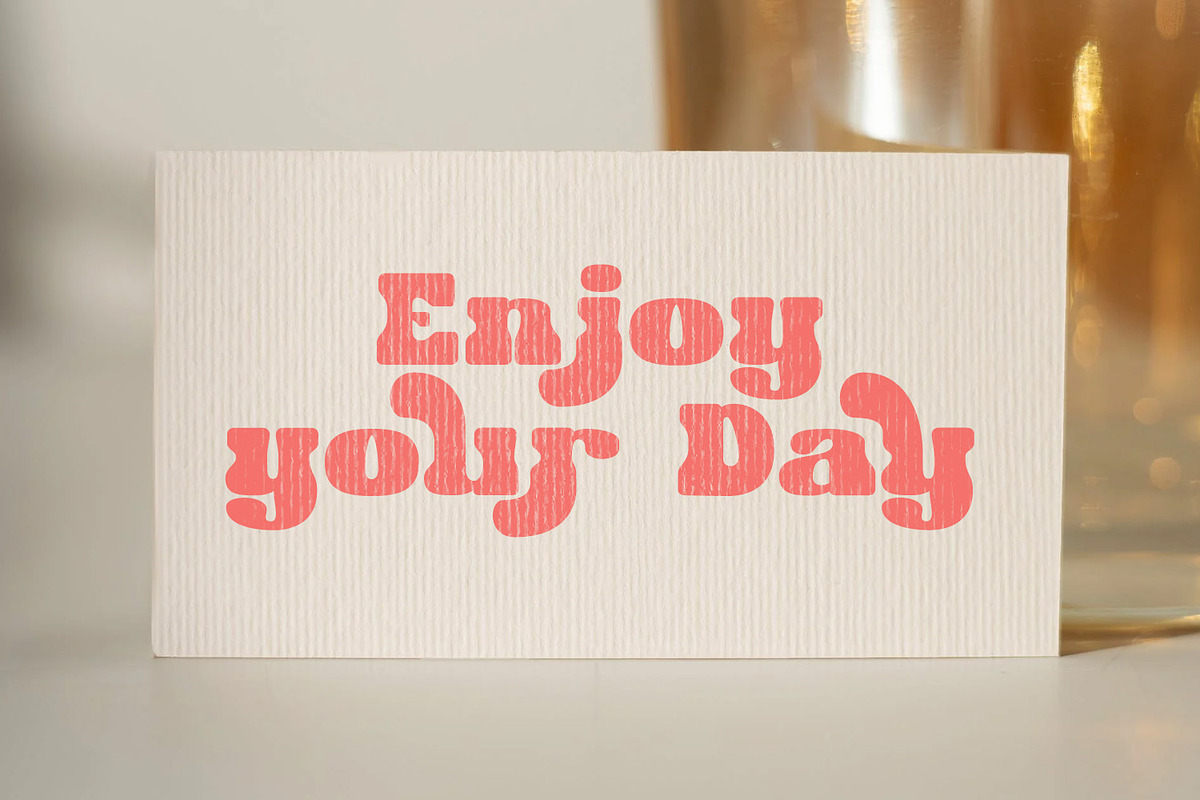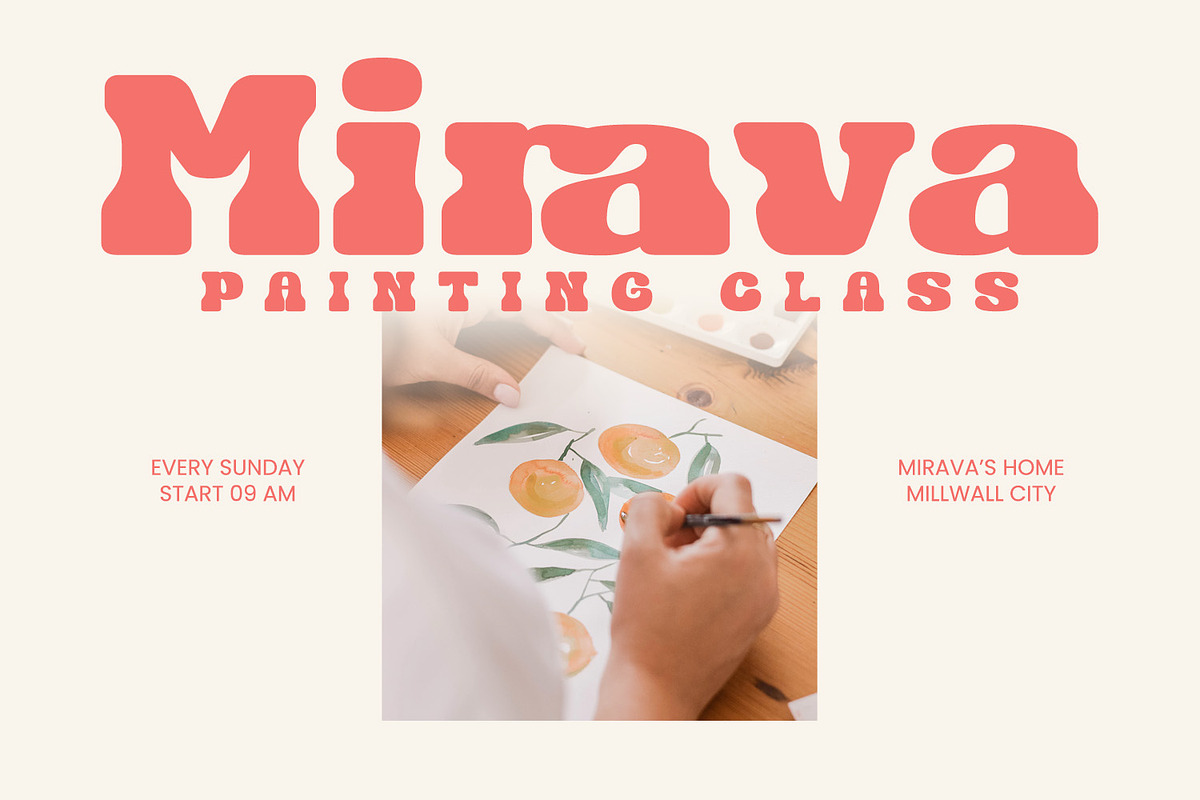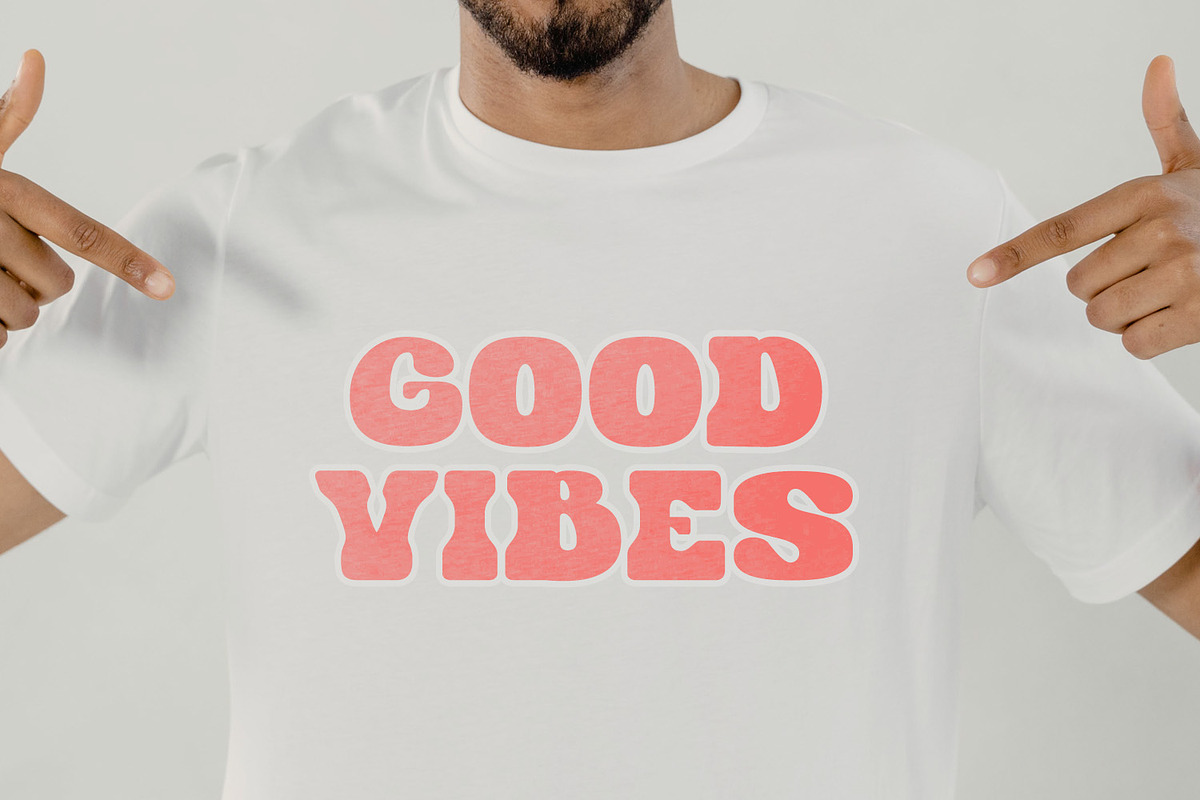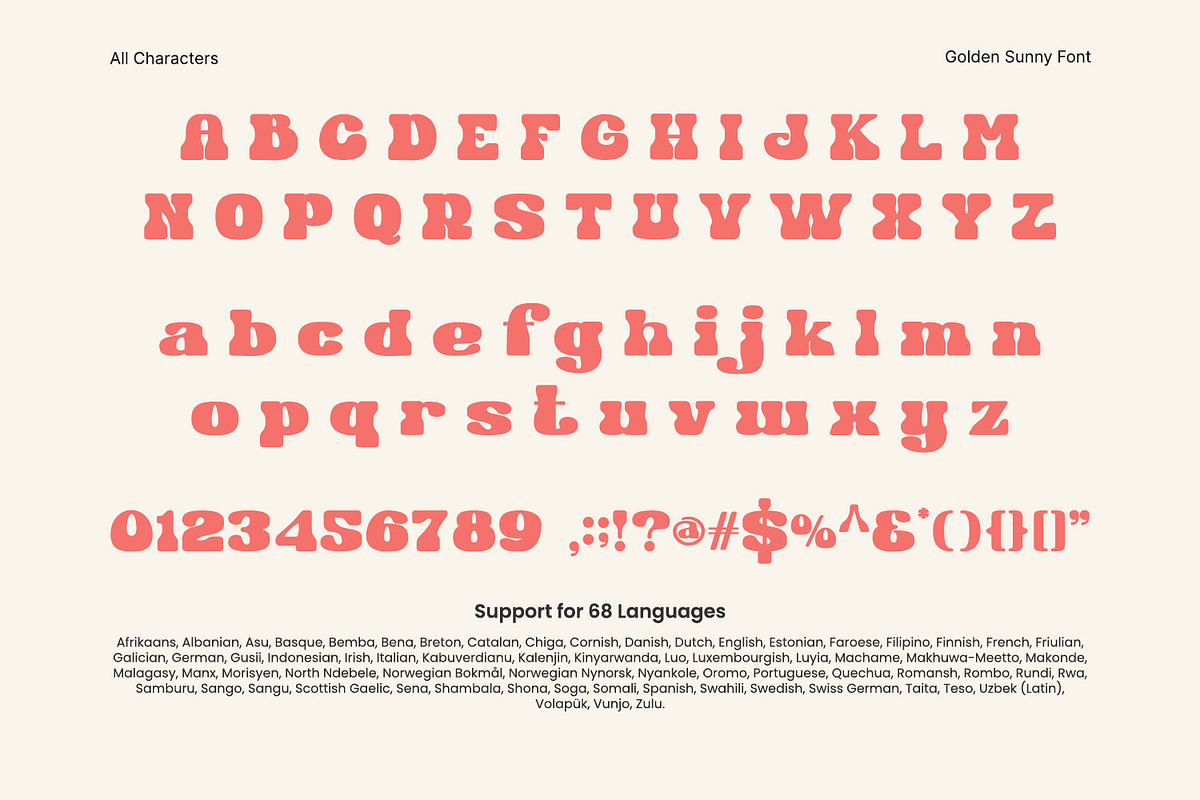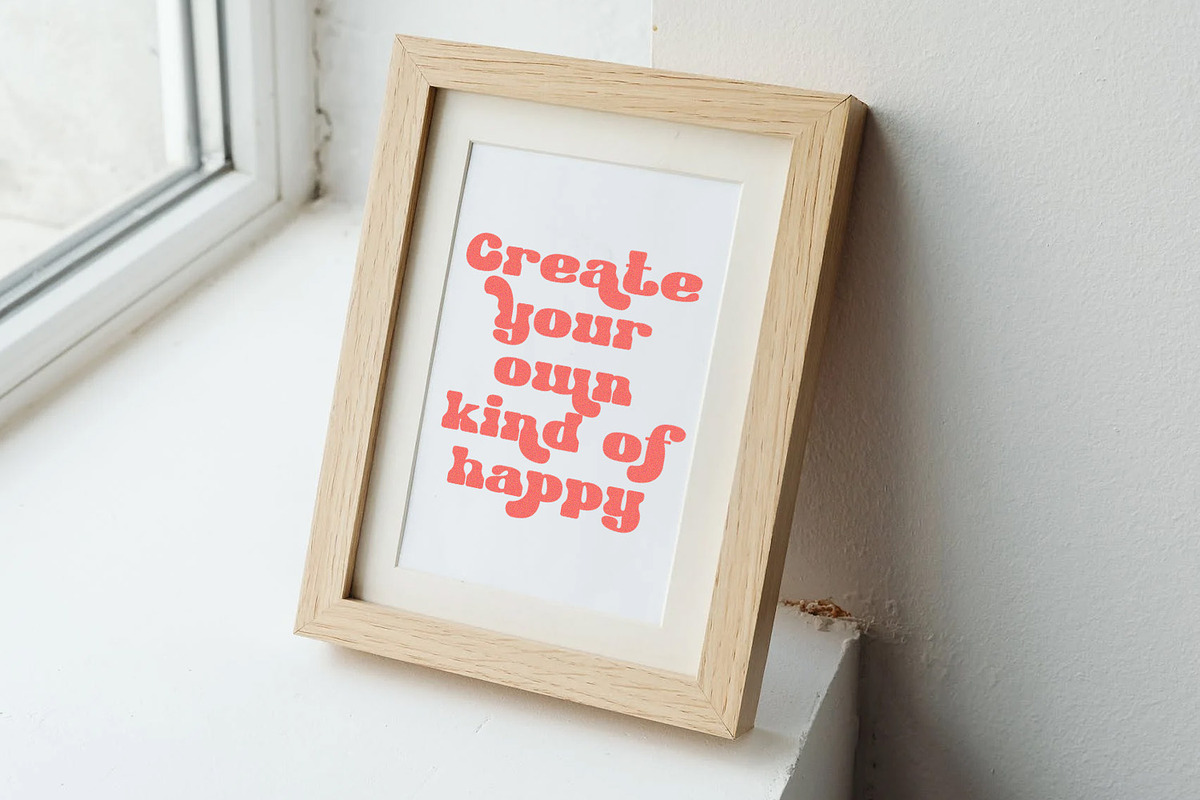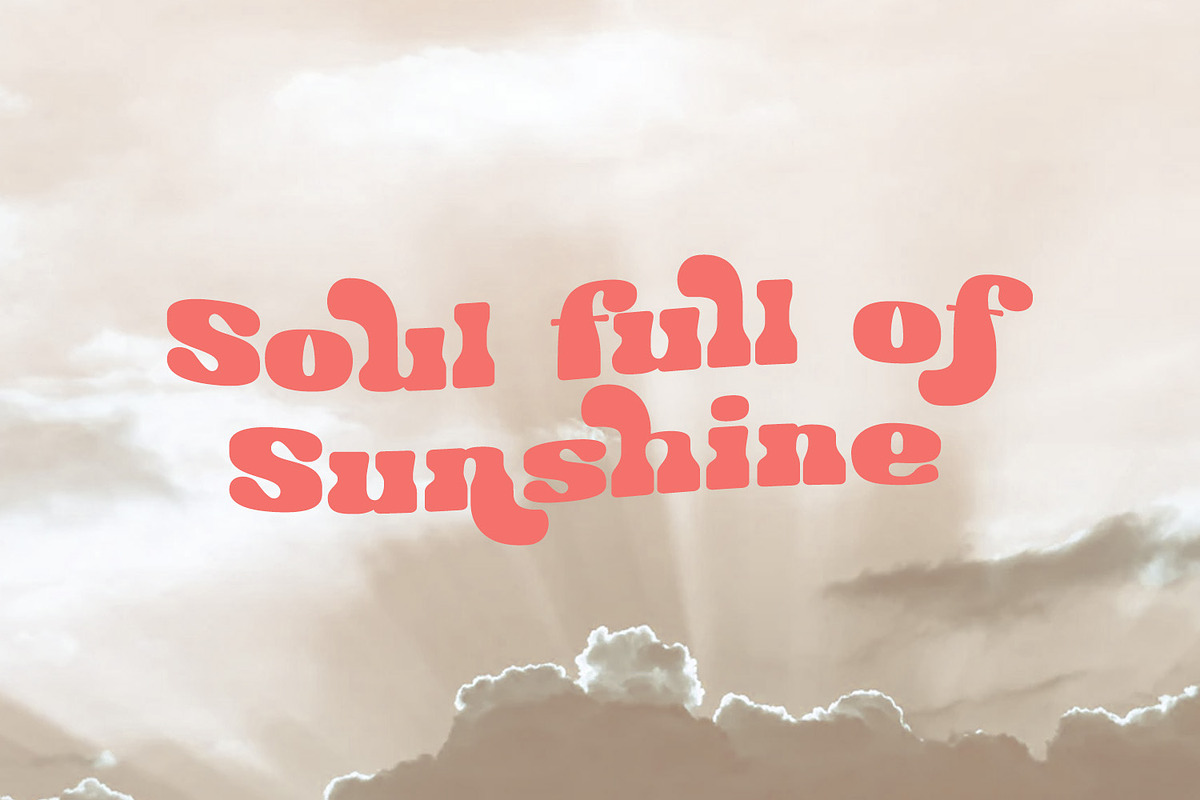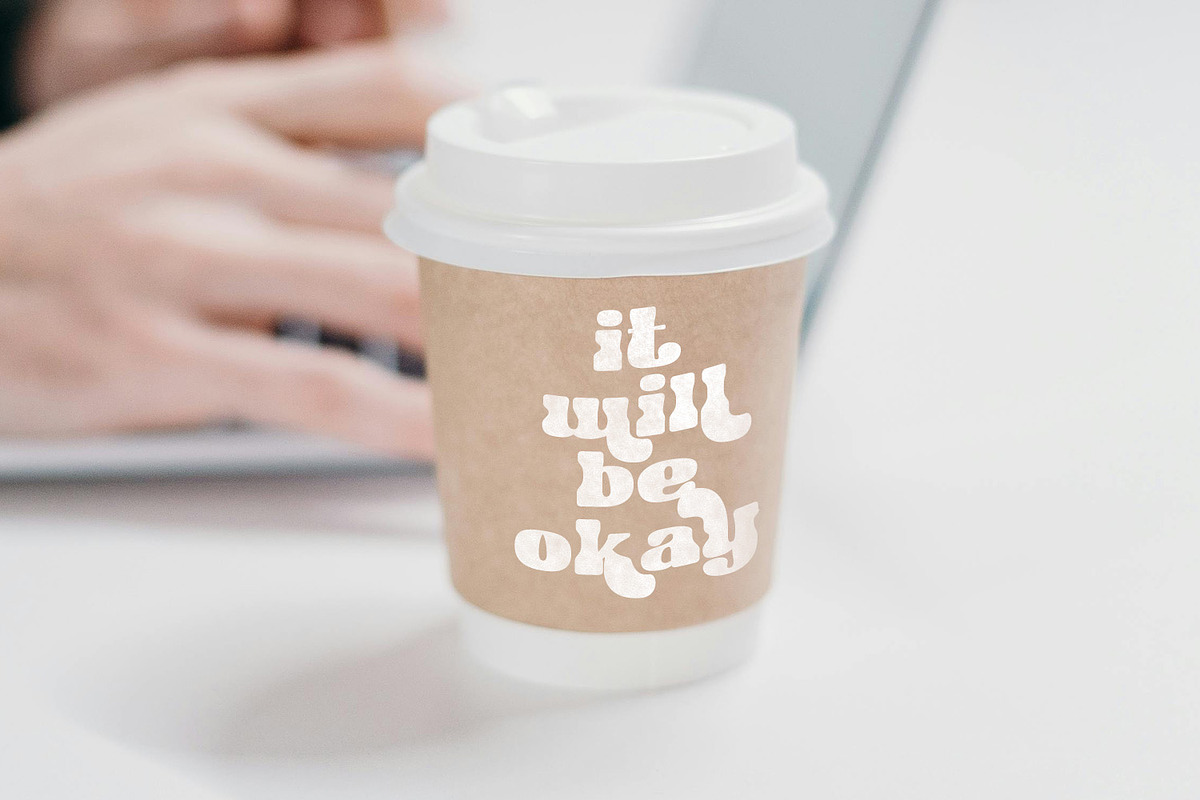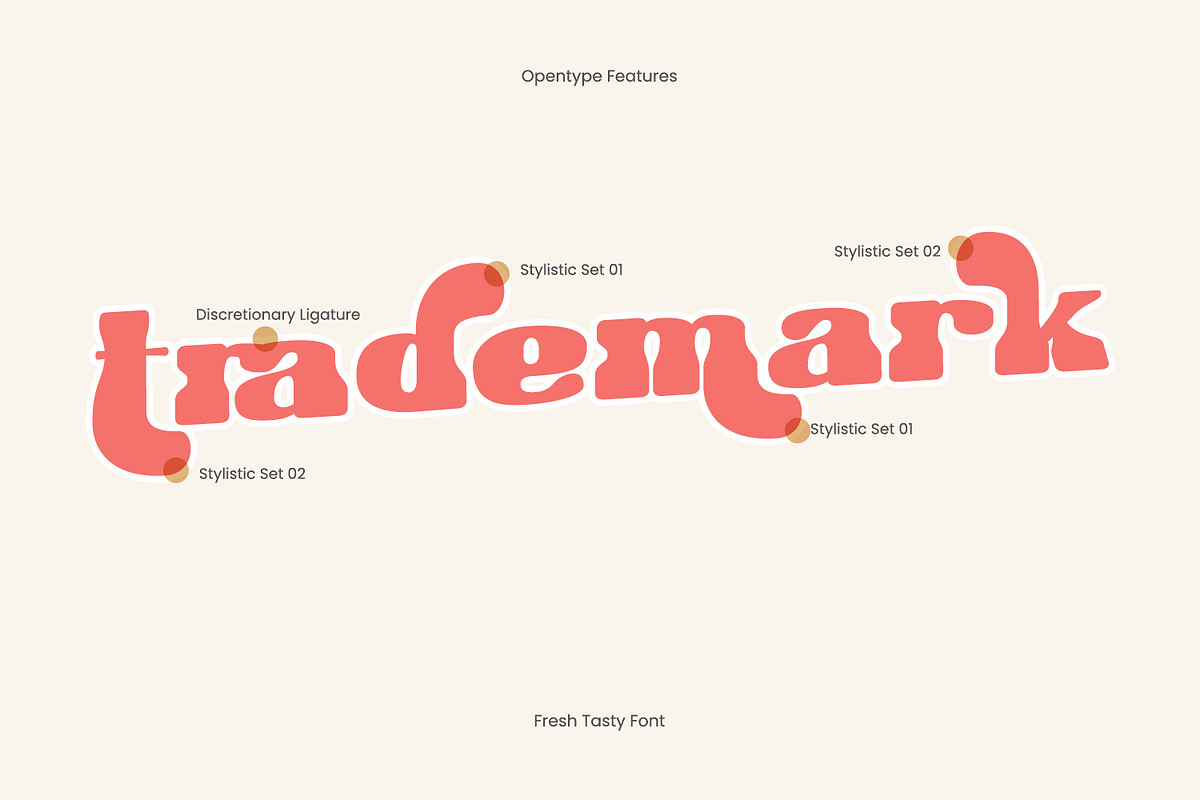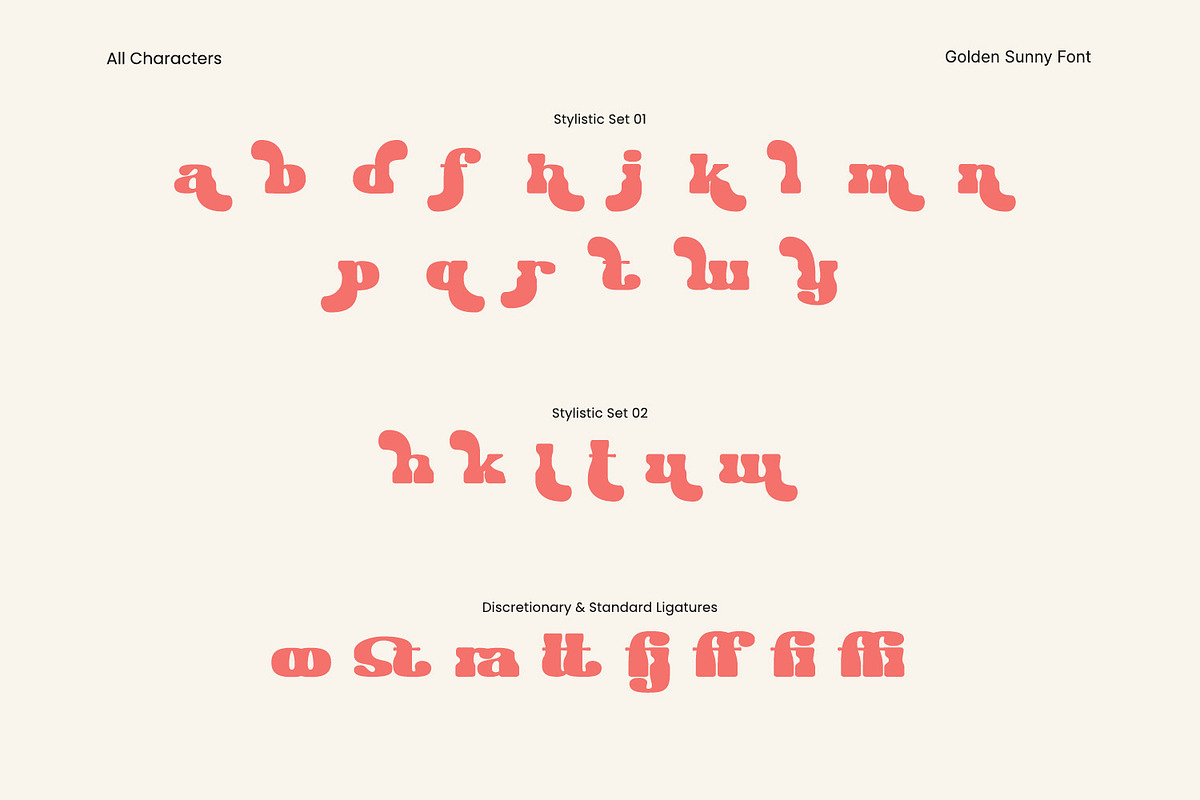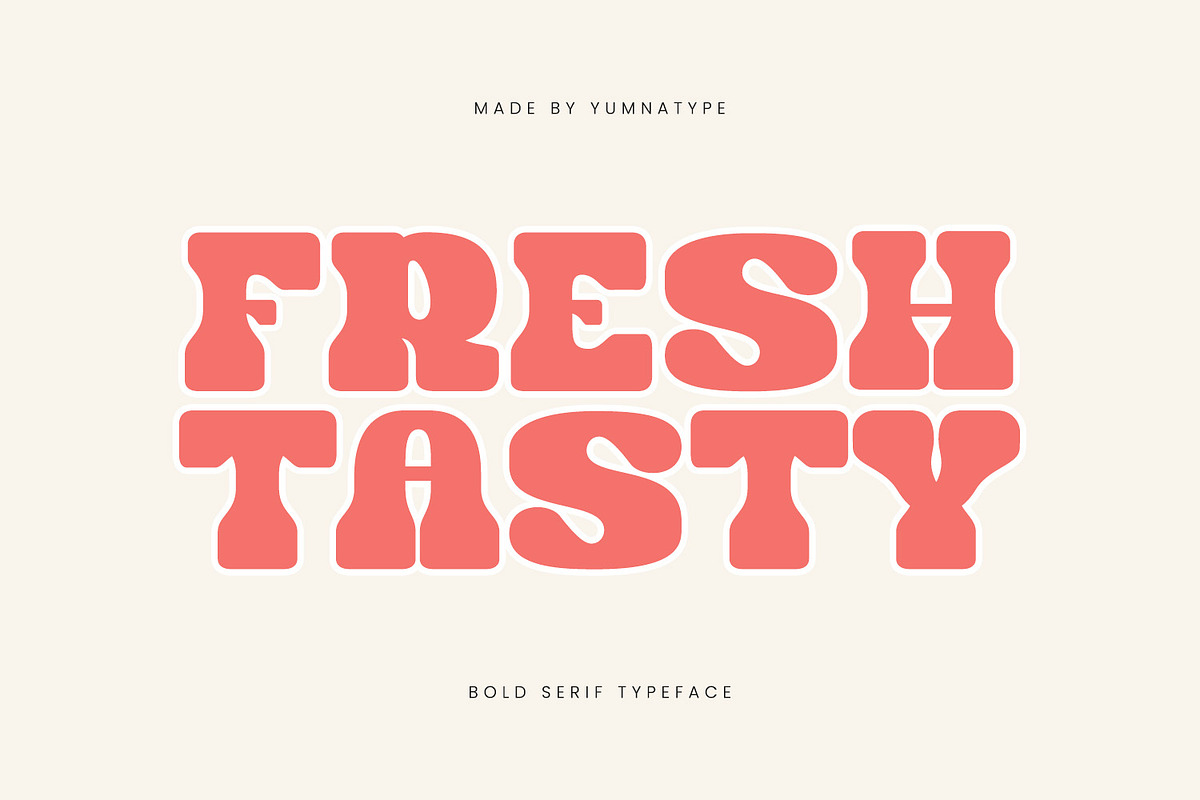
Fresh Tasty
Fresh Tasty is a bold and dynamic serif font designed in a modern style to add a burst of energy and vitality to your designs. With its bold weight and contemporary flair, this font captures attention and makes a bold statement in any design application.
Crafted with clean lines and sharp angles, Fresh Tasty exudes confidence and sophistication. Each letter is meticulously designed to convey a sense of modernity and style, while still retaining the timeless elegance of serif typography. Despite its bold weight, Fresh Tasty maintains a sense of versatility and adaptability. In addition, enjoy the features here.
- Stylistic Sets
Fresh Tasty fits in headlines, logos, posters, flyers, branding materials, greeting cards, print media, editorial layouts, and many more designs. Find out more ways to use this font by taking a look at the font preview.